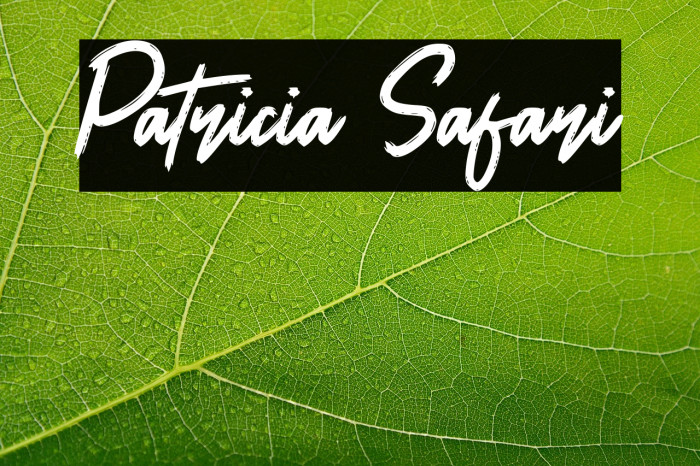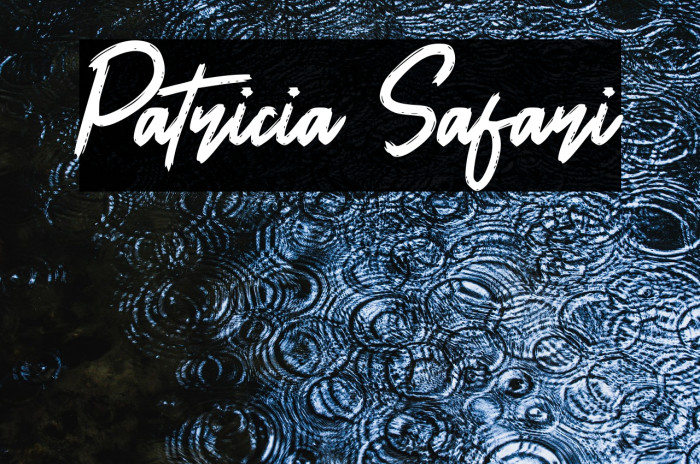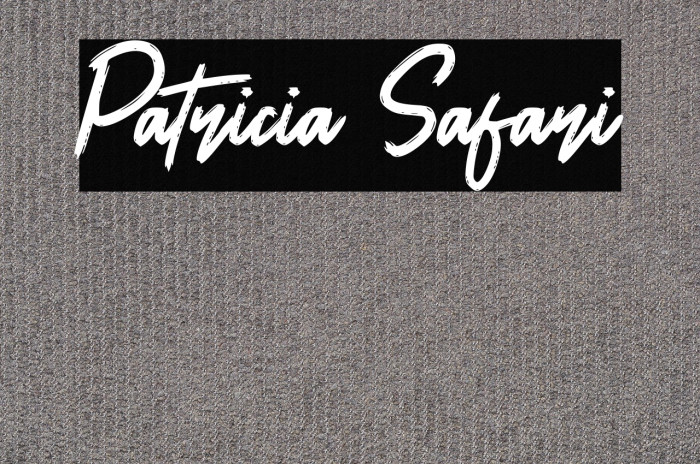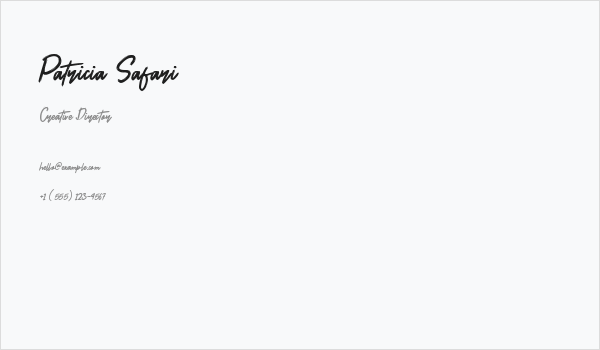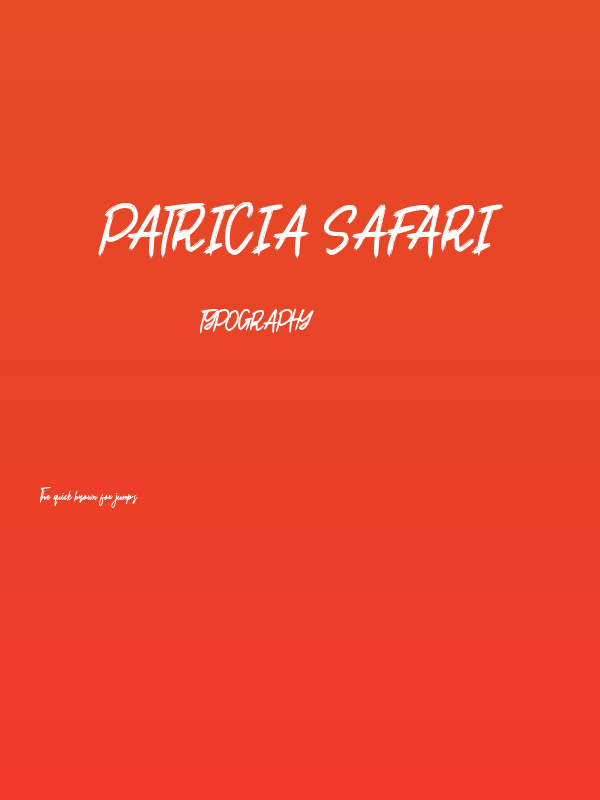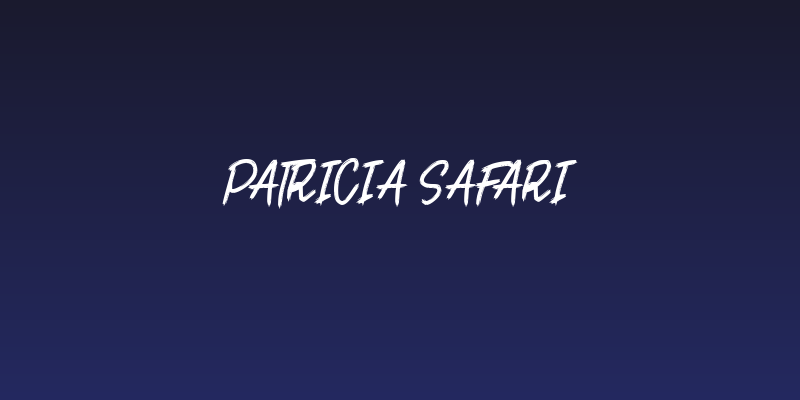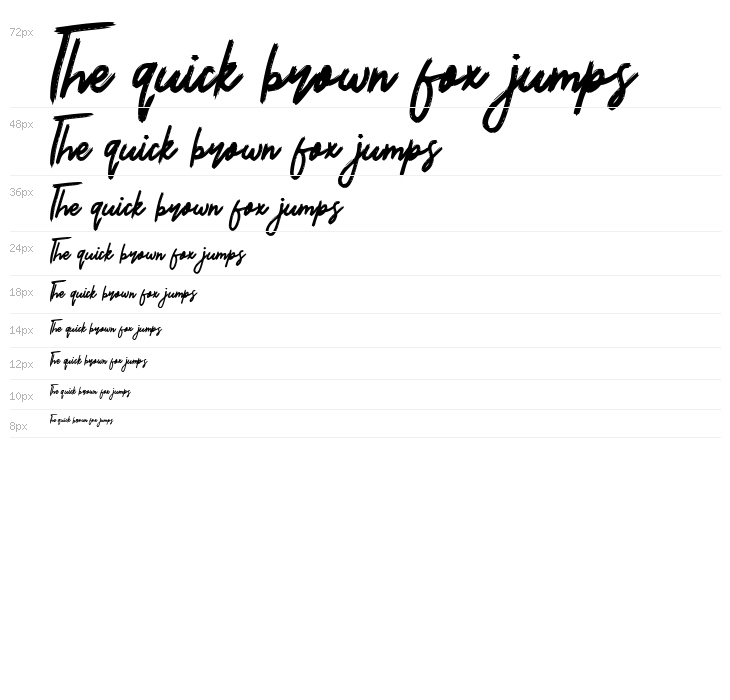
Patricia Safari Font
Patricia Safari Description
This font features a dynamic and energetic script style with a brush-like texture. The letters are bold and slanted, giving a sense of movement and flair. The uppercase characters are particularly striking, with exaggerated strokes and a slightly uneven baseline that adds to the handwritten feel. The lowercase letters maintain the same energetic style, with smooth connections between characters. Numbers and special characters are consistent with the overall aesthetic, ensuring a cohesive look across all text. This font is ideal for projects that require a bold, expressive touch.
| Proposed Projects | Ideal for branding, posters, social media graphics, and any project needing a bold, expressive touch. |